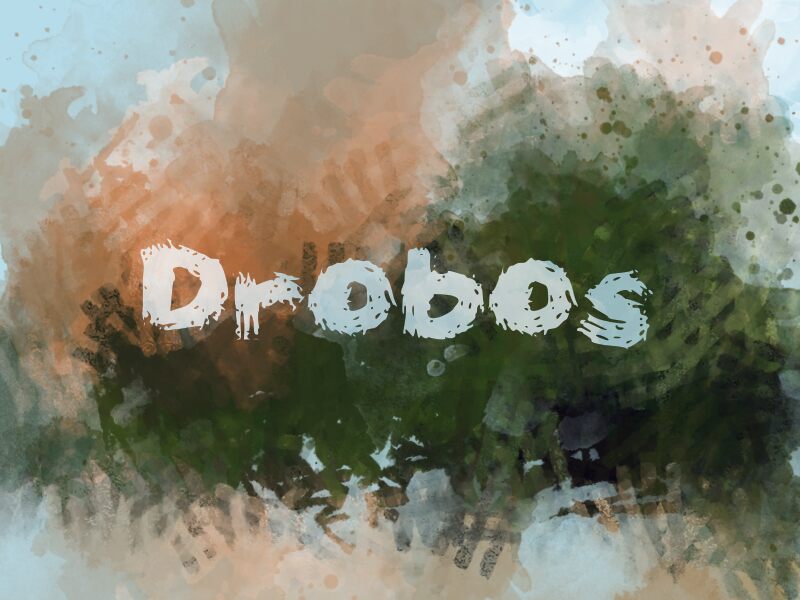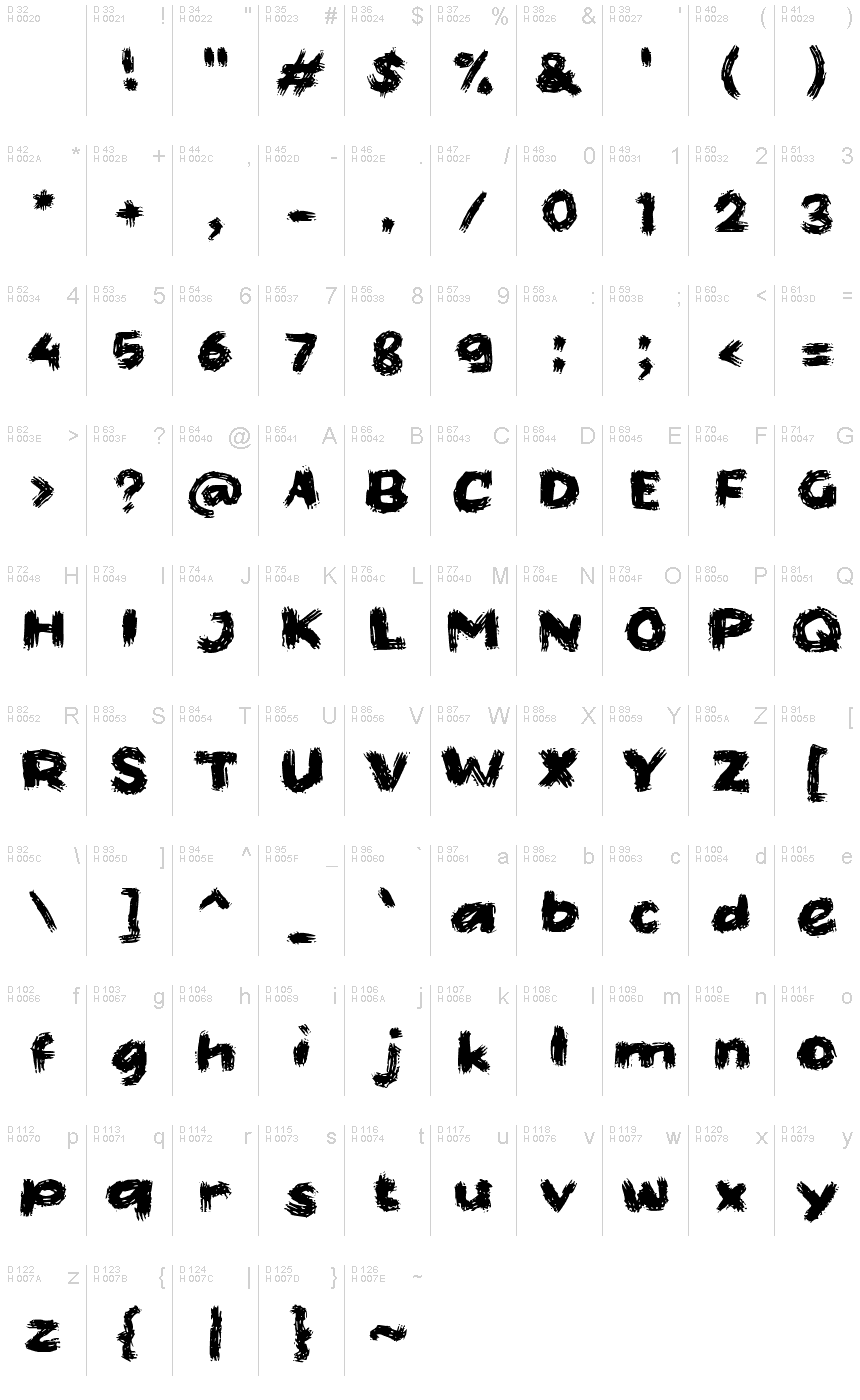
Introducing Drobos, a bold and wide script font designed by Wahyu Eka Prasetya. Its trash-style makes it perfect for projects such as album covers, edgy logos, and stylish streetwear designs.